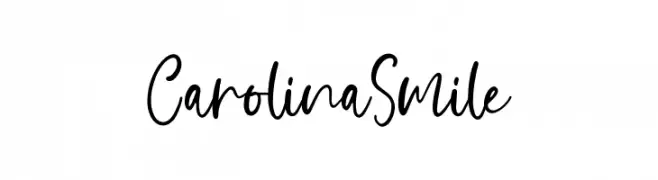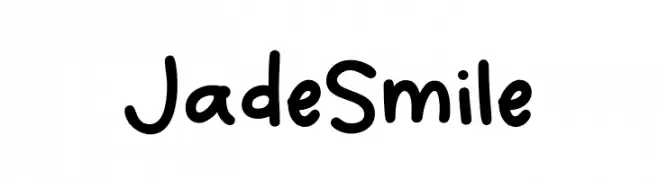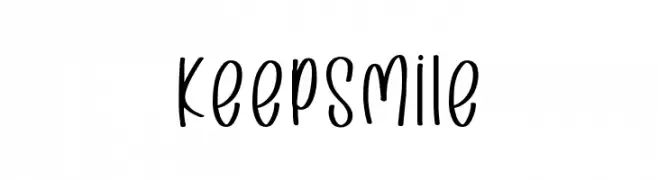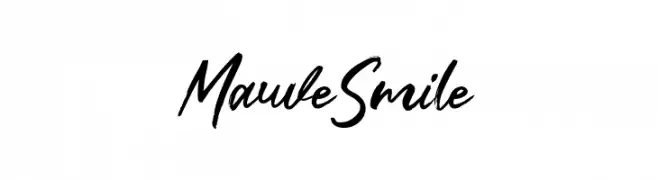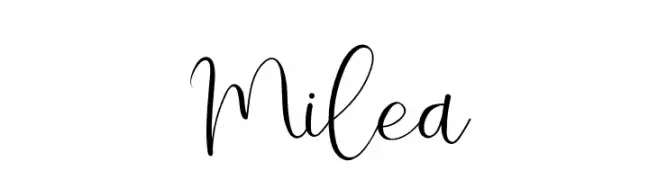
A playful, rounded font with a friendly and approachable style.
A flowing, cursive script font with elegant loops and dynamic strokes.
A playful and decorative font with curly, whimsical uppercase letters.
A modern, geometric font with a clean and minimalist design.
A bold, brush-style font with dynamic and artistic strokes.
A playful, casual handwritten font with smooth flow and rounded edges.
A playful, rounded font with a hand-drawn, whimsical style.
A bold, playful handwritten font with a lively and informal style.
A bold, playful handwritten font with smooth curves and thick strokes.
A playful handwritten font with smooth curves and elongated letterforms.